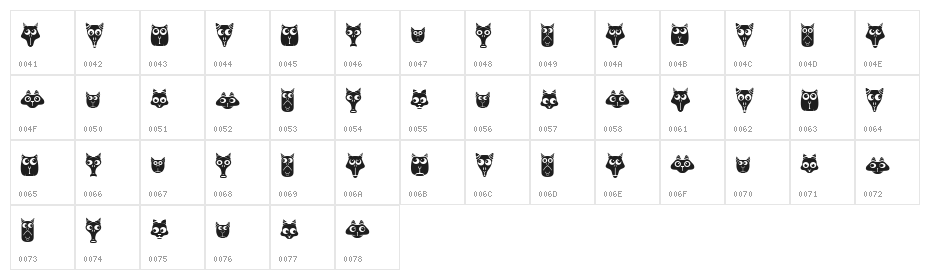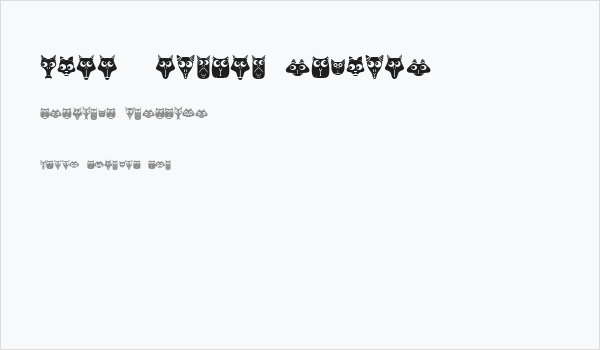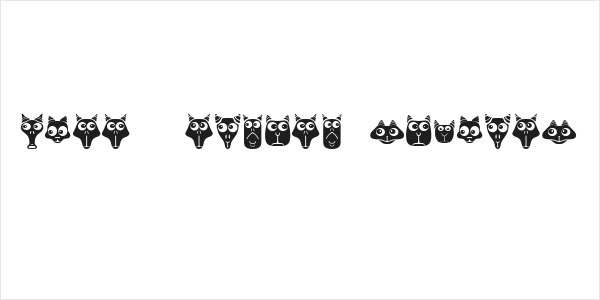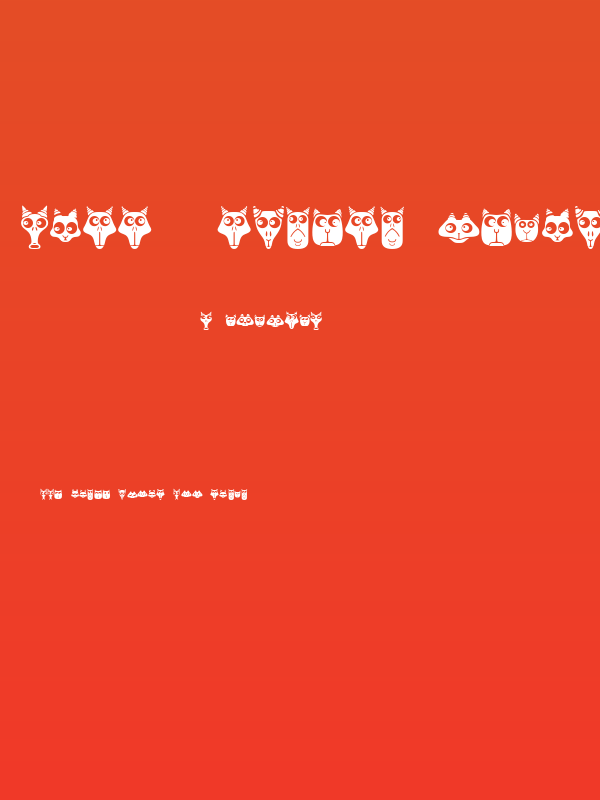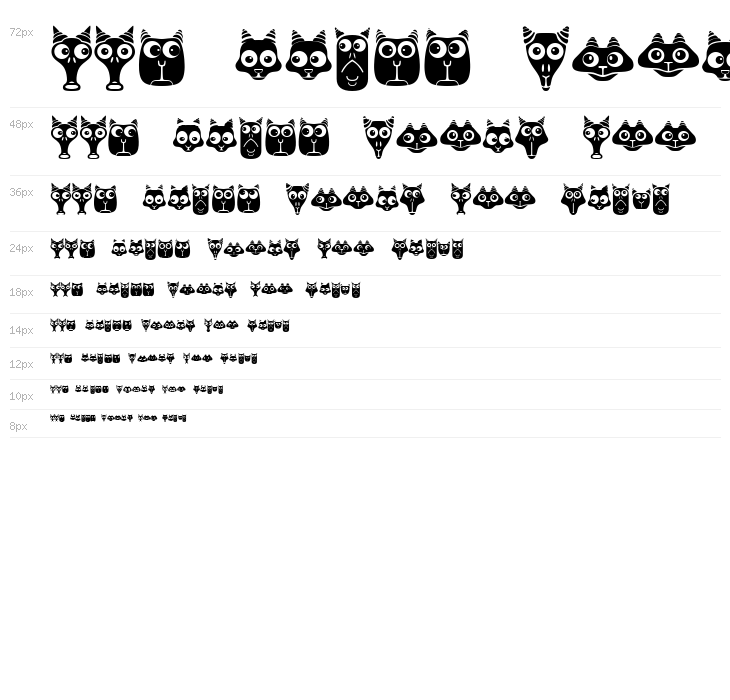
Funny Aliens Regular Font
Funny Aliens Regular Description
This is not a traditional font but rather a collection of whimsical, cartoonish alien faces. Each character is represented by a unique alien head, featuring exaggerated eyes, quirky expressions, and playful designs. The style is highly decorative and imaginative, with each face offering a distinct personality. The characters are bold and visually striking, making them suitable for creative and playful design projects. The overall look is fun and engaging, appealing to audiences looking for something out of the ordinary.
Use CaseLogos, Posters, Children's Books
Proposed ProjectsIdeal for children's books, playful posters, novelty items, or any project requiring a whimsical touch.